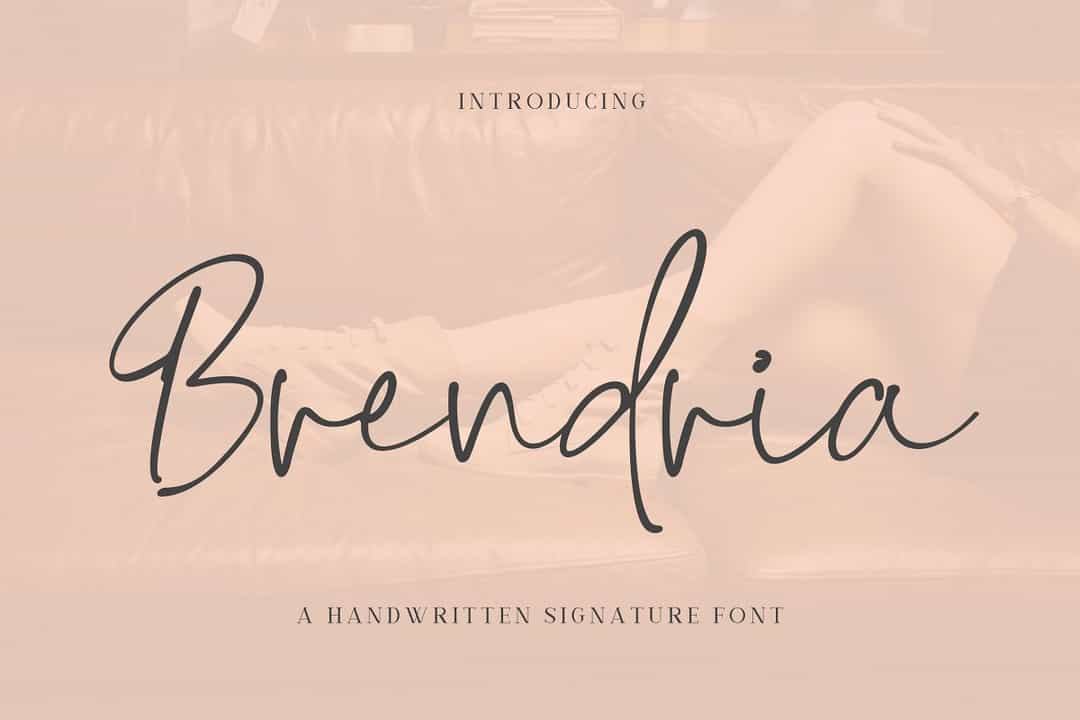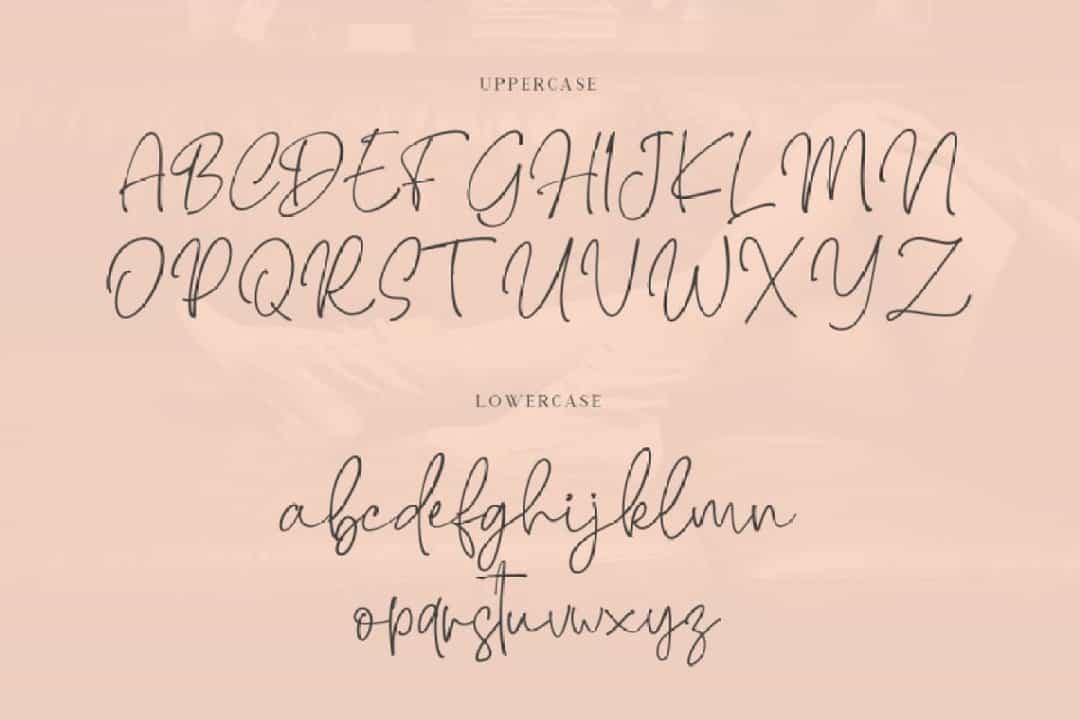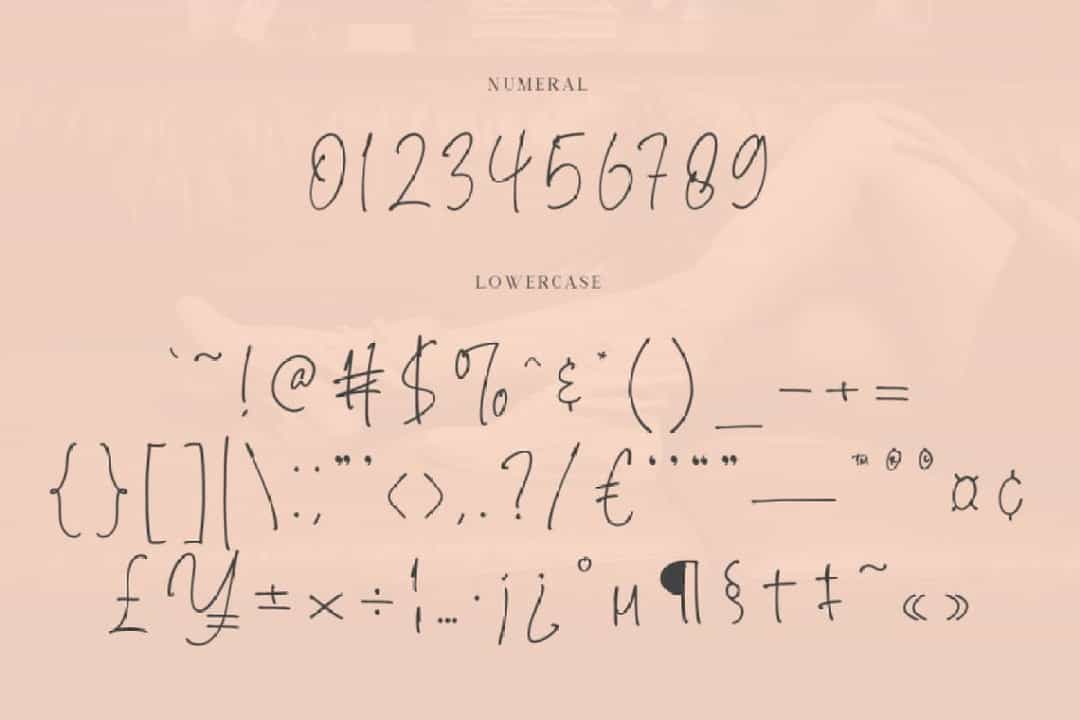
Brendria Font is elegant font with sophisticated look and is aesthetically appealing in its design. It is ideal for clothing and fashion design, albums, logo design for brands, social media advertising, and promotion, as well as for other numerous activities – that’s also convenient!